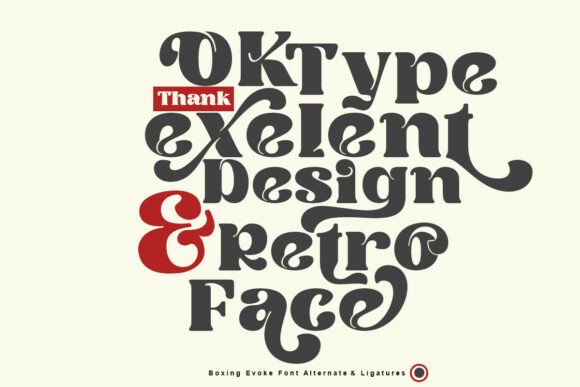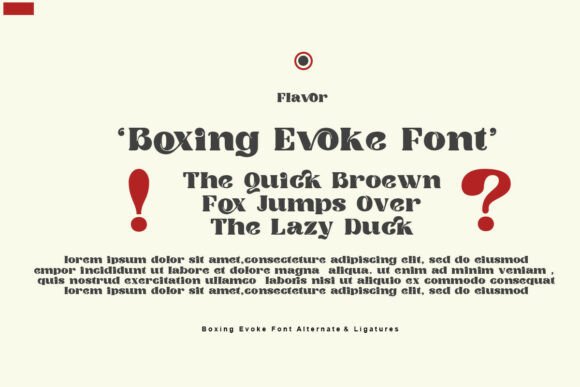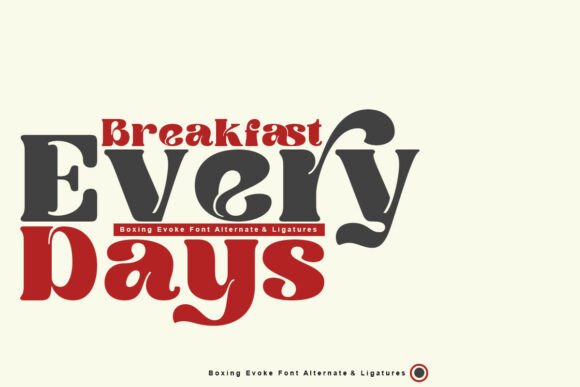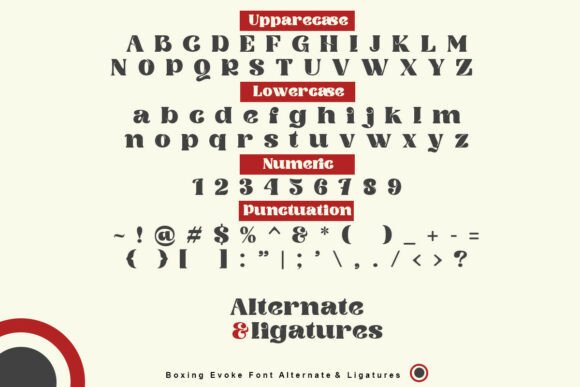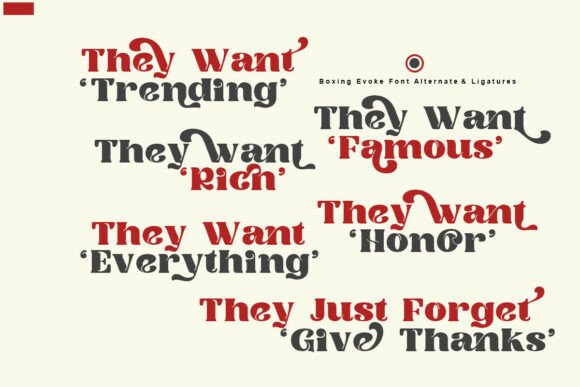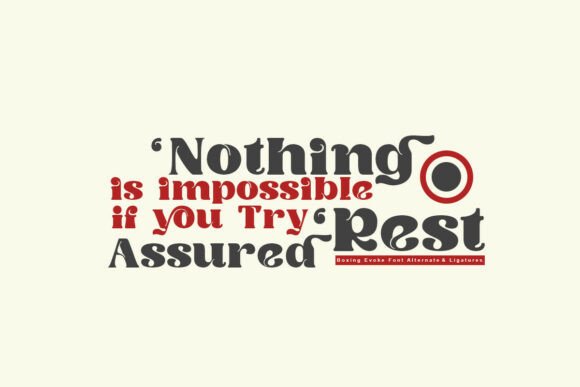
Unlocking the Elegance of Boxing Evoke Font: A Designer’s Dream
Have you ever been in the middle of a design project, pouring your heart and soul into it, only to hit a roadblock when it comes to choosing the perfect font? I certainly have. It was during one of those moments, working on a chic boutique branding project, that I stumbled upon Boxing Evoke. This font has been a game-changer for me, and I’m excited to share my experience with you.
A Personal Encounter with Boxing Evoke
I was tasked with creating a sophisticated brand identity for a new fashion label. The client wanted something that exuded elegance, modernity, and a dash of boldness. As I scrolled through font libraries, Boxing Evoke caught my eye. Its refined appearance and fashion-forward appeal were exactly what I needed. I was immediately drawn to its unique character set and the way it seemed to elevate any design to a new level of sophistication.
An Honest Review of Boxing Evoke
What I Love About Boxing Evoke
- ✨ Elegant and modern design that’s perfect for fashion, beauty, and lifestyle brands
- ✅ Extensive character set, including OpenType features and stylistic alternates
- 💡 Highly versatile, suitable for logos, headings, and body text
- 🎨 Beautifully crafted to add a touch of sophistication to any design
While Boxing Evoke is an exceptional font, there are a few minor considerations to keep in mind:
- ⚠️ Limited availability of certain special characters, but this is rare
The Backstory of Boxing Evoke
Boxing Evoke was crafted with the designer in mind. Its creator aimed to produce a font that would not only be beautiful but also highly versatile. Inspired by the world of fashion and luxury, Boxing Evoke embodies the perfect blend of elegance and boldness. Whether you’re working on a branding project, packaging design, or editorial layout, this font is designed to elevate your work.
Q: What makes Boxing Evoke unique?
A: Boxing Evoke stands out due to its elegant design, extensive character set, and support for OpenType features and stylistic alternates.
Q: Is Boxing Evoke suitable for body text?
A: While Boxing Evoke excels in headings and titles, its readability in body text depends on the specific design and context. It’s best used in moderation for optimal impact.